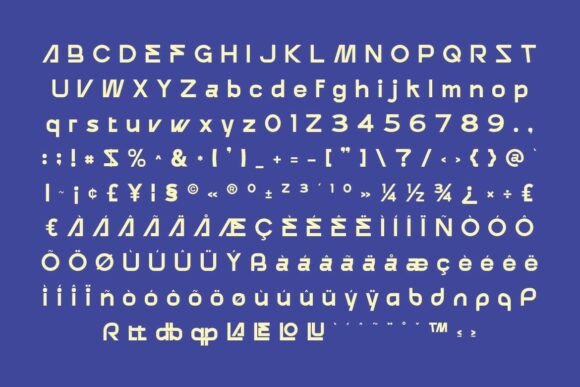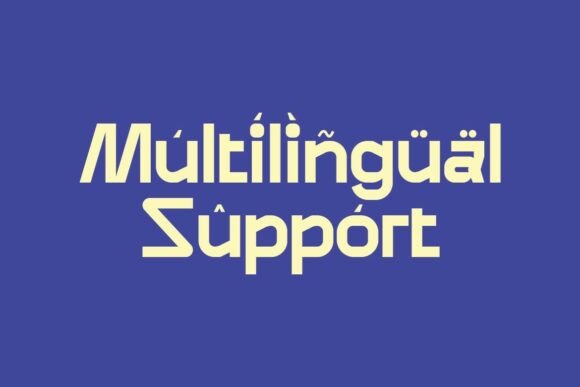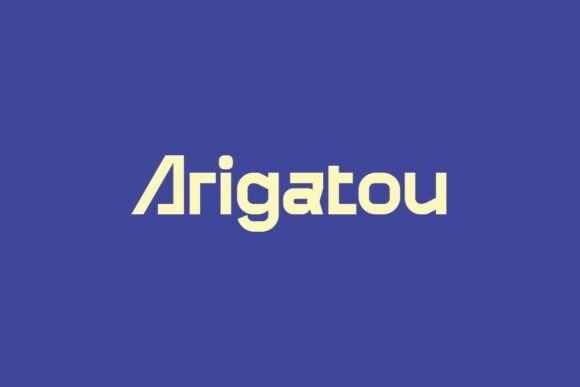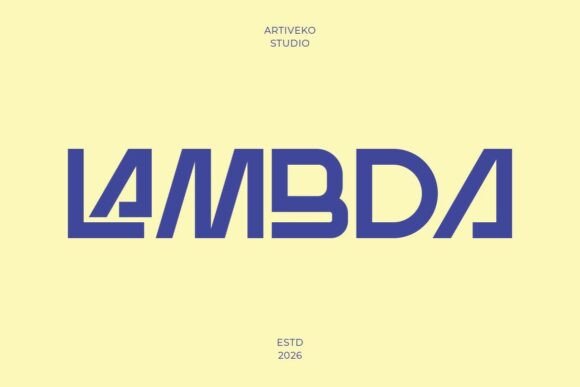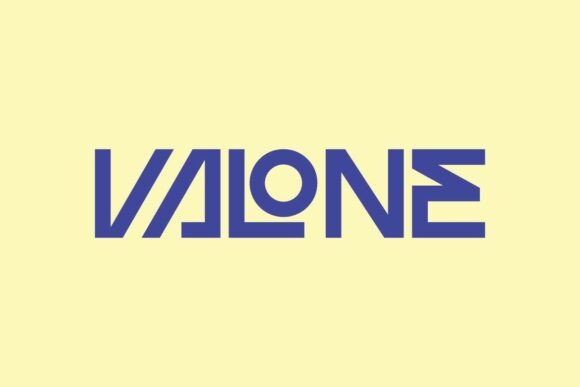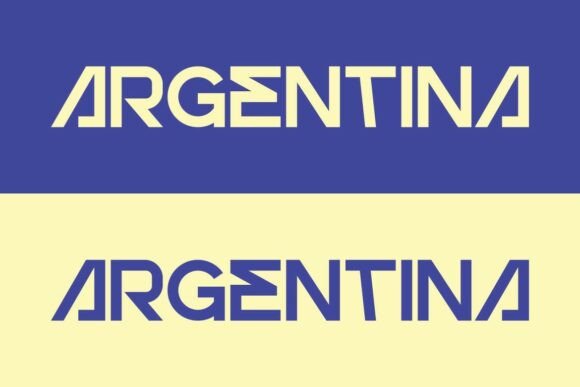
Introduction to Fenoment Font
Fenoment is a unique display sans serif typeface designed to break conventional design boundaries with bold personality and modern distinction.
Featuring expressive letterforms, creative structure, and contemporary style, Fenoment delivers a fresh visual identity that instantly stands out .
Key Features of Fenoment Font